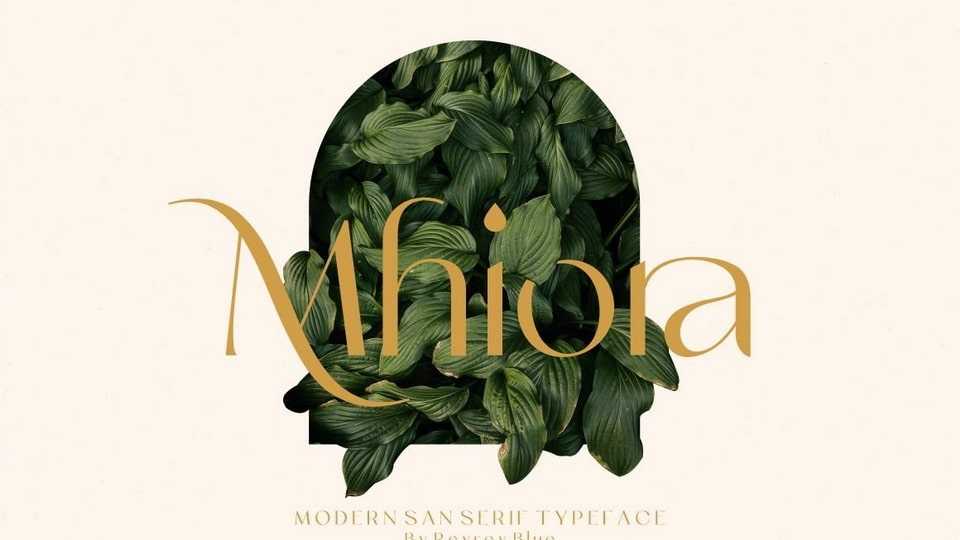
Download Mhiora font, a modern and classy sans serif typeface with a sophisticated touch. Mhiora font is specially designed for luxury, elegant and feminine projects.